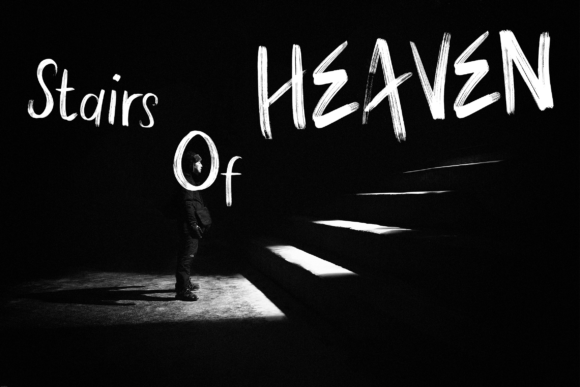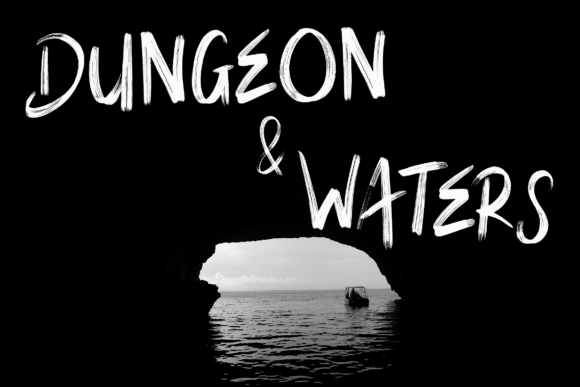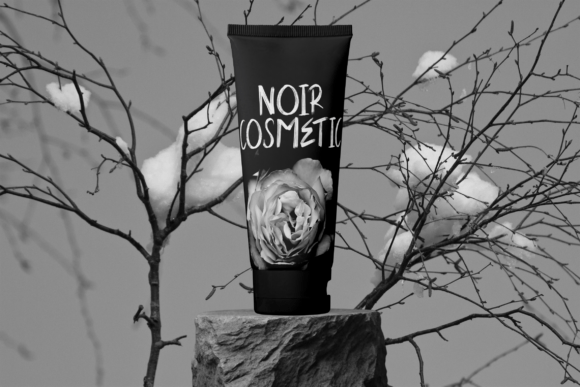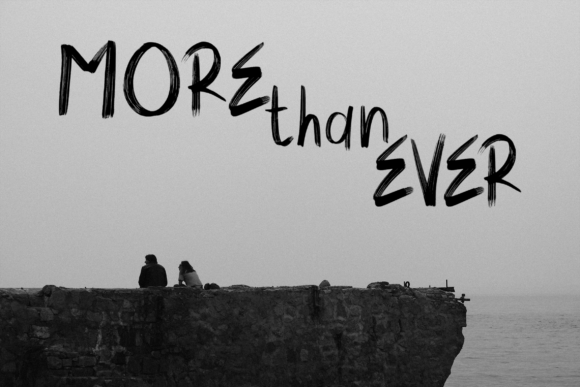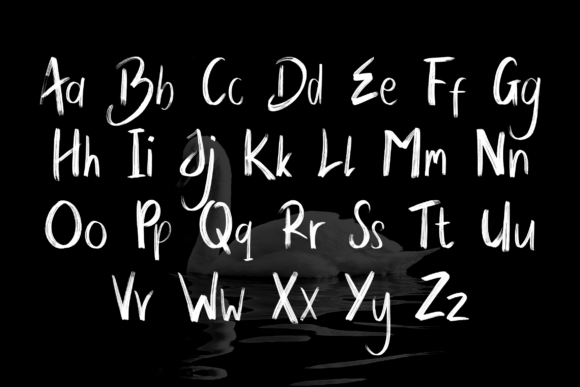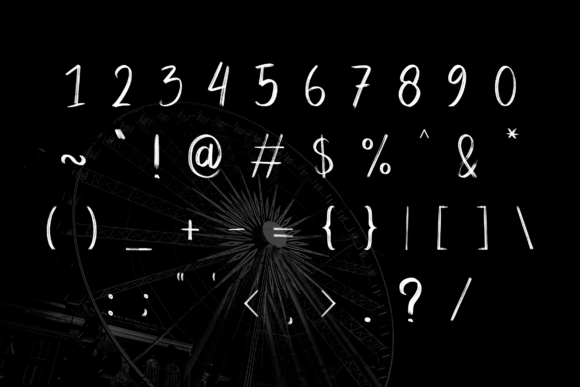
Aurora Smile Font: Adding a Touch of Happiness to Your Designs
Are you tired of using the same old fonts in your designs? Do you want to add a touch of personality and whimsy to your projects? Look no further than the Aurora Smile font! This beautiful handwritten brush font is perfect for designers and crafters who want to create cheerful and engaging designs that feel friendly and alive.
What is Aurora Smile Font?
Aurora Smile is a handwritten brush font that boasts a bright and upbeat flow. Its unique, hand-painted strokes are filled with natural pressure changes, giving your words an expressive feel without sacrificing clarity. The font’s open and balanced shapes make it highly readable, even at medium and large sizes, while still maintaining that beautiful brush energy.
Characteristics of Aurora Smile Font
So, what makes Aurora Smile font so special? Here are just a few of its key characteristics:
- Handwritten brush font: Aurora Smile has a personal, handwritten feel that’s perfect for creating unique and engaging designs.
- Bright and upbeat flow: The font’s bright and cheerful flow makes it perfect for designs that need a little extra happiness.
- Natural pressure changes: The font’s hand-painted strokes feature natural pressure changes, giving your words a expressive and human feel.
- Highly readable: Despite its brush energy, Aurora Smile remains highly readable, even at medium and large sizes.
Uses for Aurora Smile Font
Aurora Smile font is incredibly versatile, making it perfect for a wide range of design projects. Here are just a few ideas to get you started:
- Cheerful logos: Create a logo that really stands out with Aurora Smile font. Its bright and upbeat flow makes it perfect for brands that want to convey a sense of happiness and friendliness.
- Social posts: Add a touch of personality to your social media posts with Aurora Smile font. Its handwritten feel makes it perfect for creating engaging and shareable content.
- Quote graphics: Create inspiring quote graphics that really pop with Aurora Smile font. Its natural pressure changes and expressive strokes make it perfect for showcasing motivational quotes.
- Packaging: Add a touch of whimsy to your packaging designs with Aurora Smile font. Its cheerful flow makes it perfect for brands that want to stand out on store shelves.
- Stickers: Create fun and engaging stickers with Aurora Smile font. Its highly readable shapes make it perfect for creating stickers that can be used on laptops, water bottles, and more.
- Kids brands: Aurora Smile font is perfect for kids brands that want to convey a sense of fun and playfulness. Its bright and upbeat flow makes it perfect for creating engaging and child-friendly designs.
- Café menus: Add a touch of personality to your café menu with Aurora Smile font. Its handwritten feel makes it perfect for creating menus that feel friendly and approachable.
- Event promos: Create eye-catching event promos with Aurora Smile font. Its cheerful flow makes it perfect for promoting concerts, festivals, and other fun events.
Why Choose Aurora Smile Font?
So, why should you choose Aurora Smile font for your next design project? Here are just a few reasons:
- Adds a touch of happiness: Aurora Smile font instantly adds a touch of happiness to your designs, making them feel more engaging and friendly.
- Highly versatile: The font is incredibly versatile, making it perfect for a wide range of design projects.
- Easy to read: Despite its brush energy, Aurora Smile font remains highly readable, even at medium and large sizes.
- Unique and expressive: The font’s hand-painted strokes and natural pressure changes make it truly unique and expressive.
In conclusion, Aurora Smile font is a beautiful and versatile handwritten brush font that’s perfect for designers and crafters who want to add a touch of happiness to their designs. Its bright and upbeat flow, natural pressure changes, and highly readable shapes make it perfect for a wide range of design projects. Whether you’re creating cheerful logos, social posts, quote graphics, or packaging, Aurora Smile font is sure to bring a smile to your audience’s face.